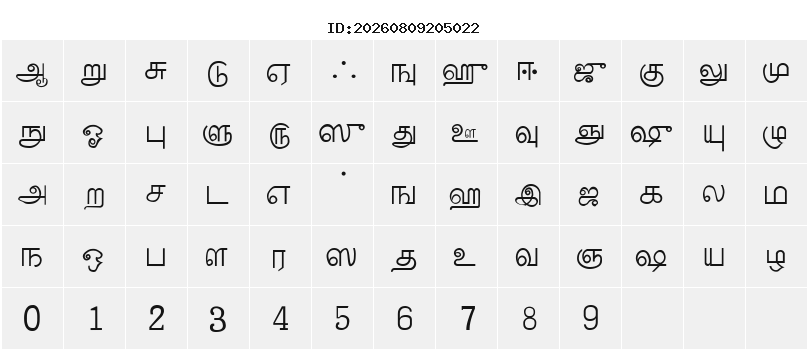
• Font Name: Palladam
• Full Font Name: Palladam Medium
About Palladam.ttf
Palladam.ttf is a modern, elegant sans-serif font designed for ultimate readability and visual harmony. Perfect for branding, headlines, web design, and print materials.